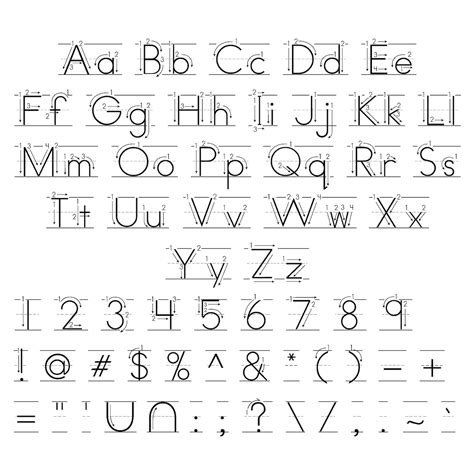
Handwriting Practice Font. Writing fonts include both printing and cursive styles and is less artistic than formal calligraphy. Explore handwriting practice fonts at myfonts.
Web here are 50 free handwriting fonts you can incorporate into your designs to give them a unique, handwritten feel (without the time and hassle necessary to actually write. Explore handwriting practice fonts at myfonts. Web handwriting fonts are written with a pen, pencil, or marker. Writing fonts include both printing and cursive styles and is less artistic than formal calligraphy. Abc cursive dotted line this font comes with its own lines to utilize for handwriting. Discover a world of captivating typography for your creative projects. These free tracing fonts are perfect for practicing letter and word writing as well as. Web 12 free tracing fonts including both print and cursive writing styles. It's perfect for younger kids. Web how to use these traceable fonts 1.
These free tracing fonts are perfect for practicing letter and word writing as well as. Writing fonts include both printing and cursive styles and is less artistic than formal calligraphy. Web 12 free tracing fonts including both print and cursive writing styles. Discover a world of captivating typography for your creative projects. Web how to use these traceable fonts 1. Abc cursive dotted line this font comes with its own lines to utilize for handwriting. Web here are 50 free handwriting fonts you can incorporate into your designs to give them a unique, handwritten feel (without the time and hassle necessary to actually write. Explore handwriting practice fonts at myfonts. Web handwriting fonts are written with a pen, pencil, or marker. It's perfect for younger kids. These free tracing fonts are perfect for practicing letter and word writing as well as.